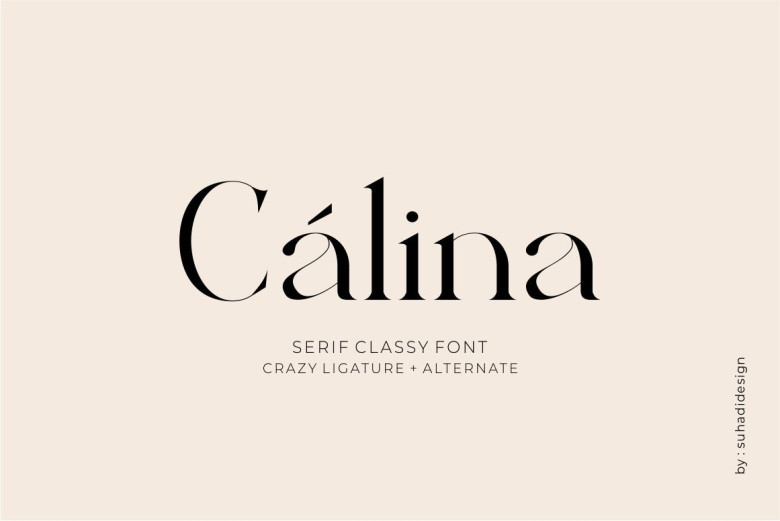
Calina Serif Font
Calina Font
Calina Typeface says it all, elegance defined with this smooth and unique serif typeface. In terms of its suitability, I would say that due to its neat lines, absence of ornament and strict geometry, Calina is suitable for any modern and minimalist projects. It complements it, providing an elegant touch without dominating the design too much. It is important to note that the font is in PUA encoded hence all delightful glyphs and swashes are easily accessible.